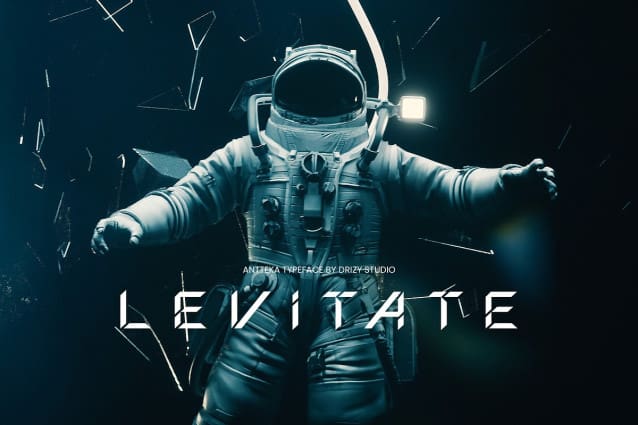
Antteka Futuristic Stencil Font
Antteka Futuristic Stencil Font a cutting-edge typeface that seamlessly blends futuristic aesthetics with a bold stencil design. This stencil font is a visual representation of modernity and innovation, making it the perfect choice for projects that demand a sleek and contemporary feel.